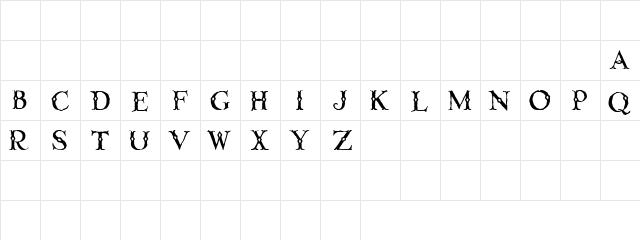
Linthicum Demo Regular Font Preview
Linthicum Demo Regular
Design Context for Linthicum Demo Typeface
Linthicum Demo is a composed and adaptable typeface that performs quietly and consistently across a wide range of design contexts.